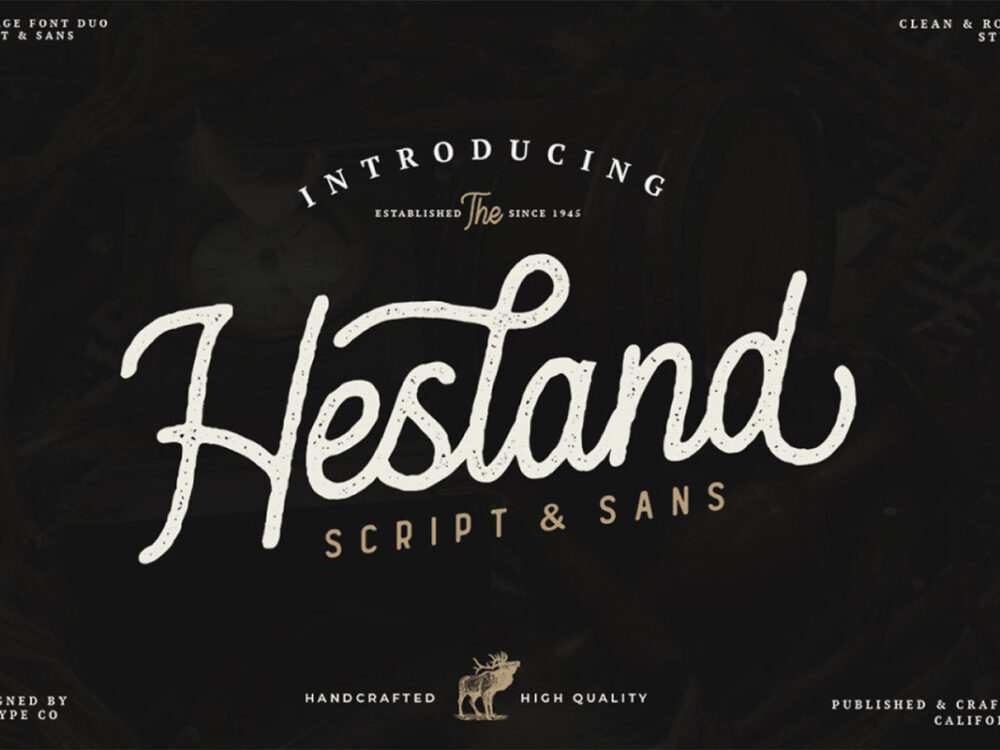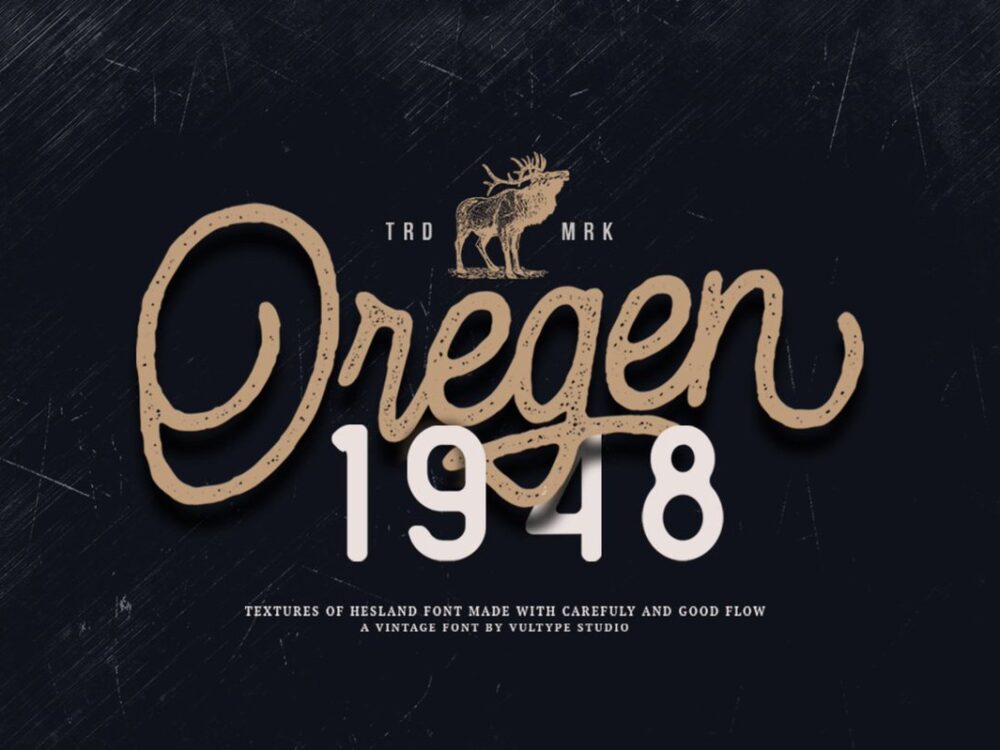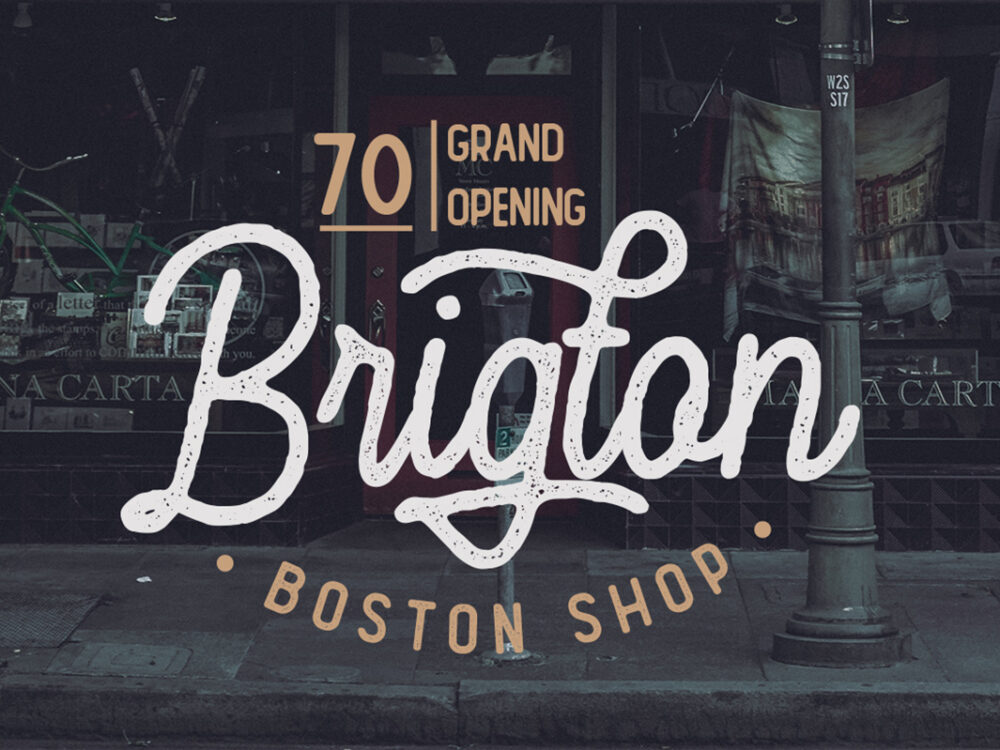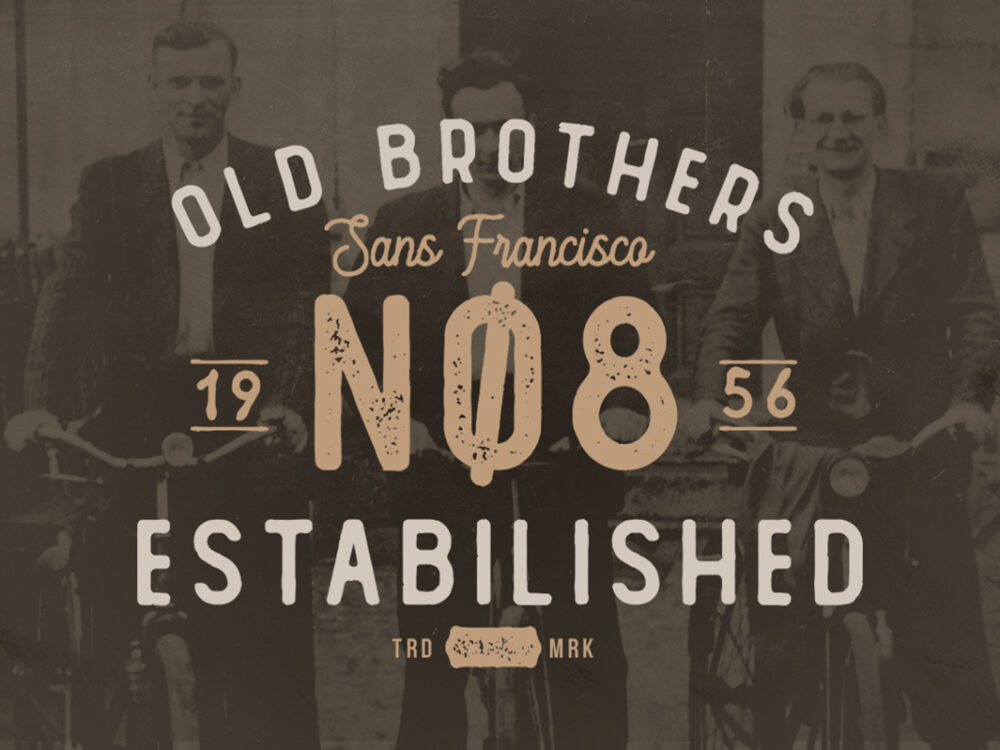
Hesland Vintage Script Font
Hesland Vintage Script Font is a quality typeface based on an old American typeface in two styles – Clean and Stampede. If you are creating some kind of design project that requires a very vintage style, then this font will suit you very well. Create a variety of vintage posters, retro-style cards and invitations, clothing prints, and more with Hesland Vintage Script Font. If you wish to use it for commercial work please buy the full version.